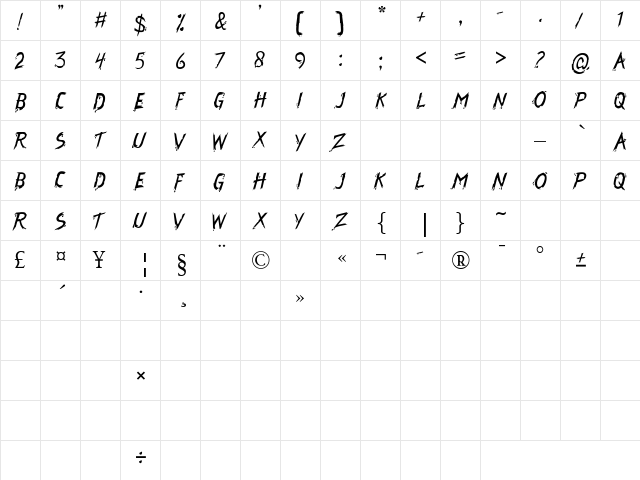
Hooded Regular
Design Context for Hooded Typeface
Hooded is a composed and adaptable typeface that performs quietly and consistently across a wide range of design contexts.